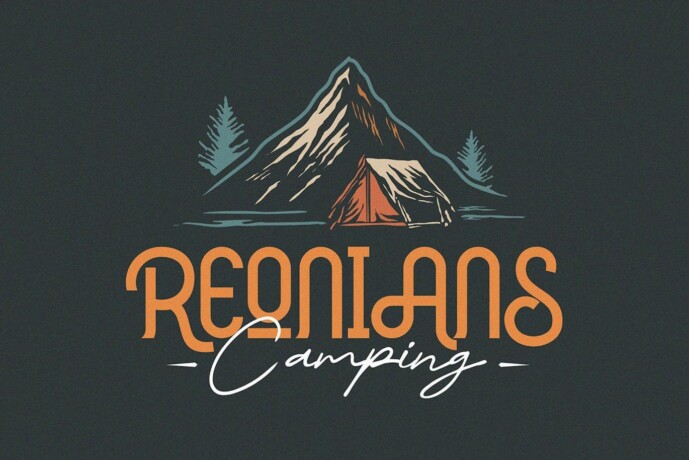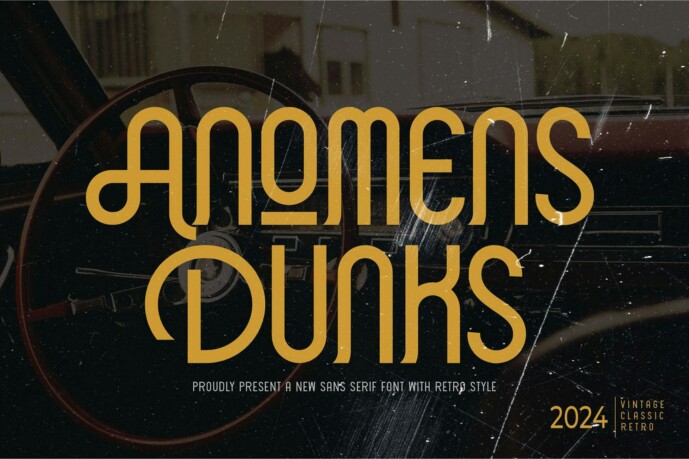
Anomens Dunk Font
Designer: typeformers
Anomens Dunk Font is a modern and simple font, best used as a display for headings, logos, branding, magazines, product packaging and invitations.